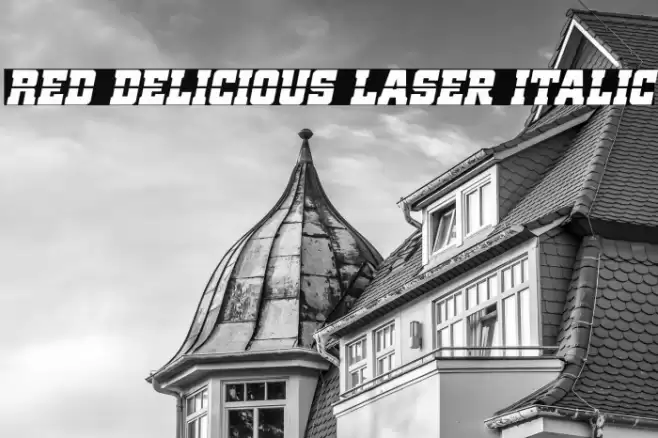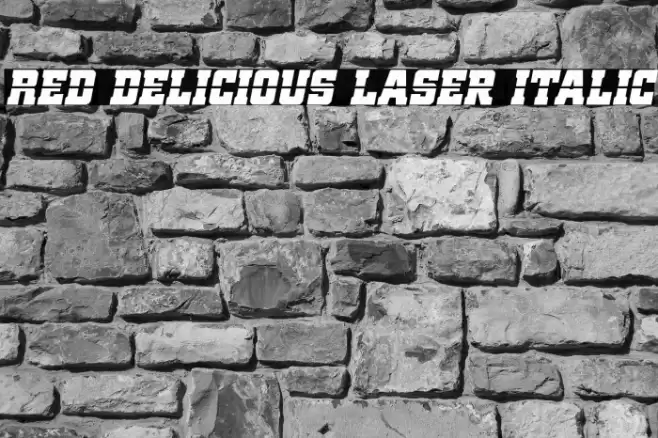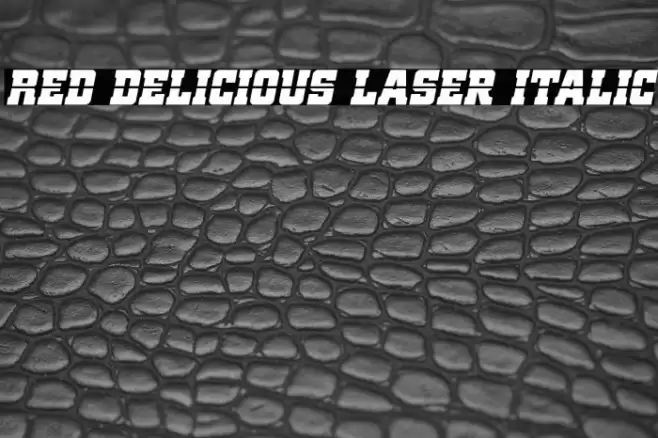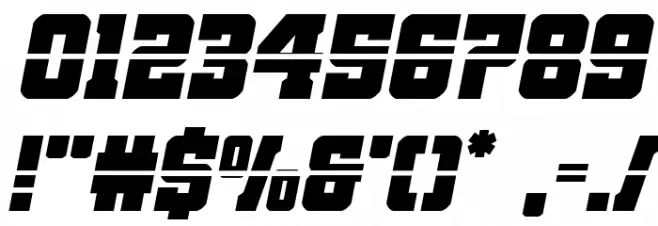
Red Delicious Laser Italic Font
Red Delicious Laser Italic Description
This font features a bold, dynamic style with a distinct slant, giving it an italicized appearance. The characters are robust and impactful, with a futuristic and sporty aesthetic. The angular cuts and sharp edges contribute to its aggressive and energetic look, making it suitable for attention-grabbing designs. The uppercase and lowercase letters maintain a consistent weight, and the numbers and special characters follow the same bold and slanted design, ensuring uniformity across all glyphs.
A bold, italicized font with a futuristic and sporty design from Uncategorized fonts.
- Proposed Projects: Ideal for sports branding, futuristic themes, video game titles, and dynamic posters.